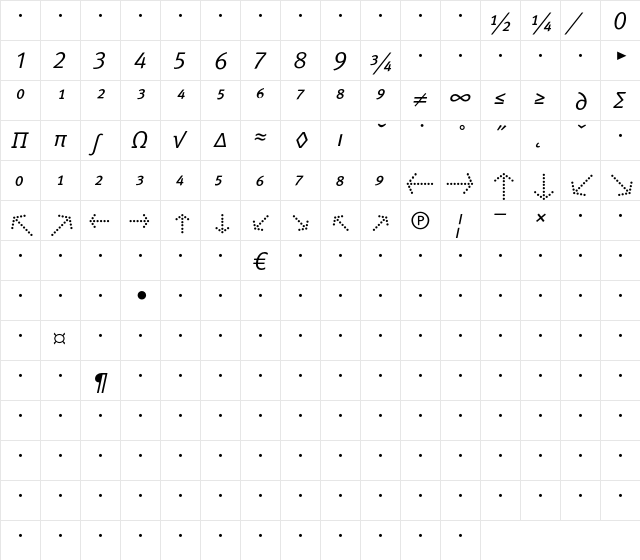
MetaNormalCyr-ItalicExpert Regular
Design Context for MetaNormalCyr-ItalicExpert Typeface
MetaNormalCyr-ItalicExpert is a composed and adaptable typeface that performs quietly and consistently across a wide range of design contexts. The dynamic lean of this cut emphasises speed and emphasis in any layout.
Pro Tip: Use MetaNormalCyr-ItalicExpert for emphasis, pull quotes, and subheadings where its slanted energy can add rhythm to the layout.